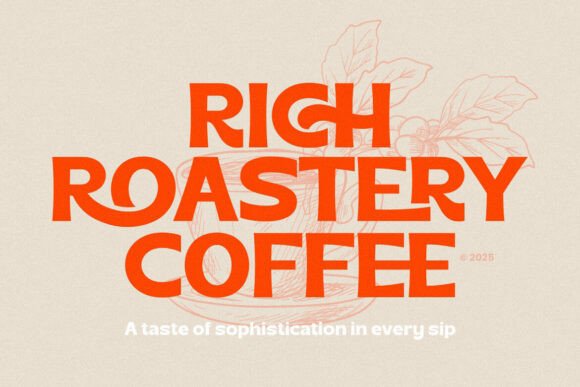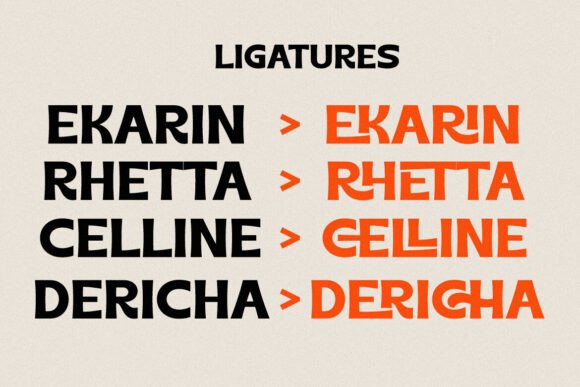
Chales Rientta Font
Chales Rientta Font is a casual display sans serif font with unique look that is perfect for multipurpose projects. This font will fit well in any design and very recommended for logo, crafts, posters, books, branding, quotes, print templates, packaging, product labels, advertising and more. This typeface comes in uppercase, lowercase, with punctuation, symbols, numerals and ligature set. This font is PUA encoded which means you can access all of the charming glyphs and swashes with Character Map on Windows or Font Book on Mac.